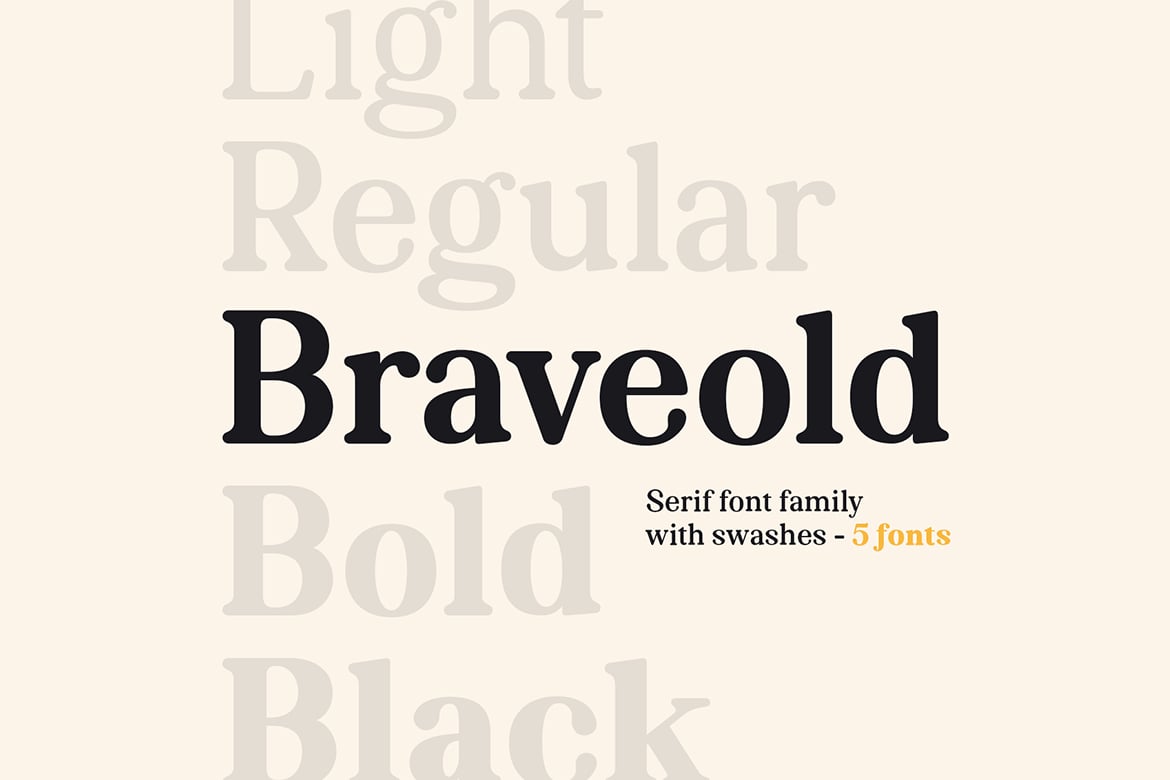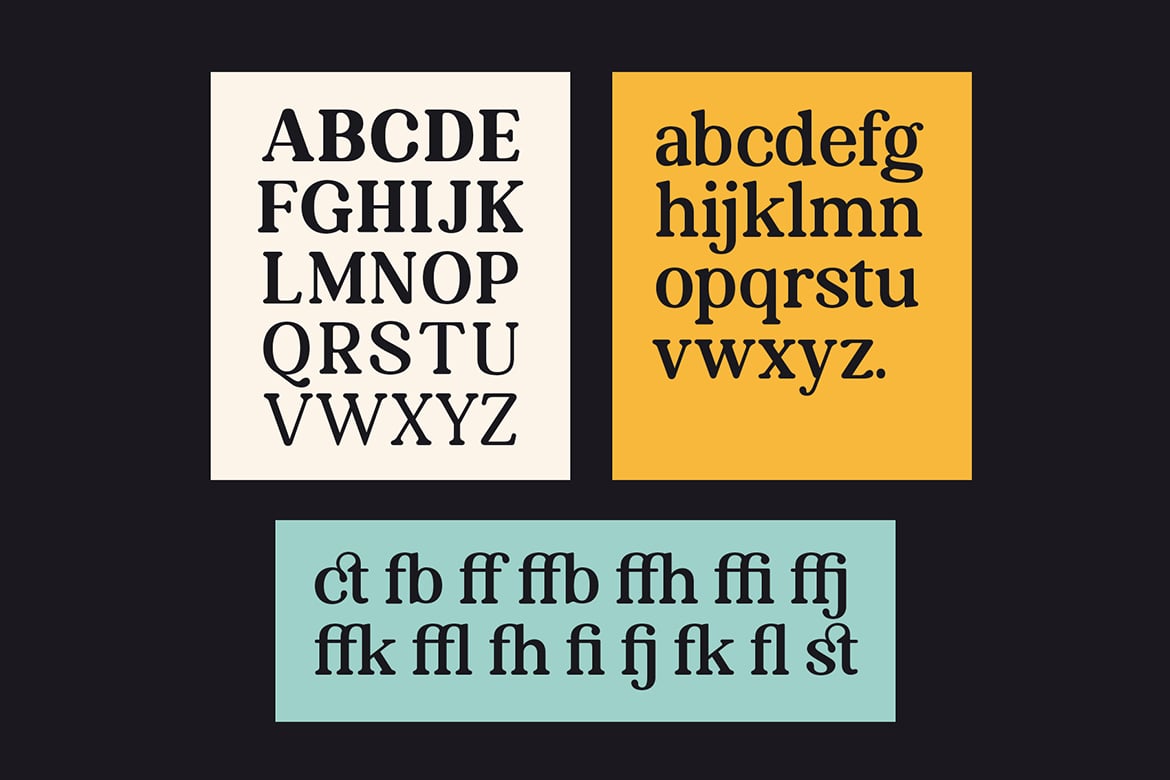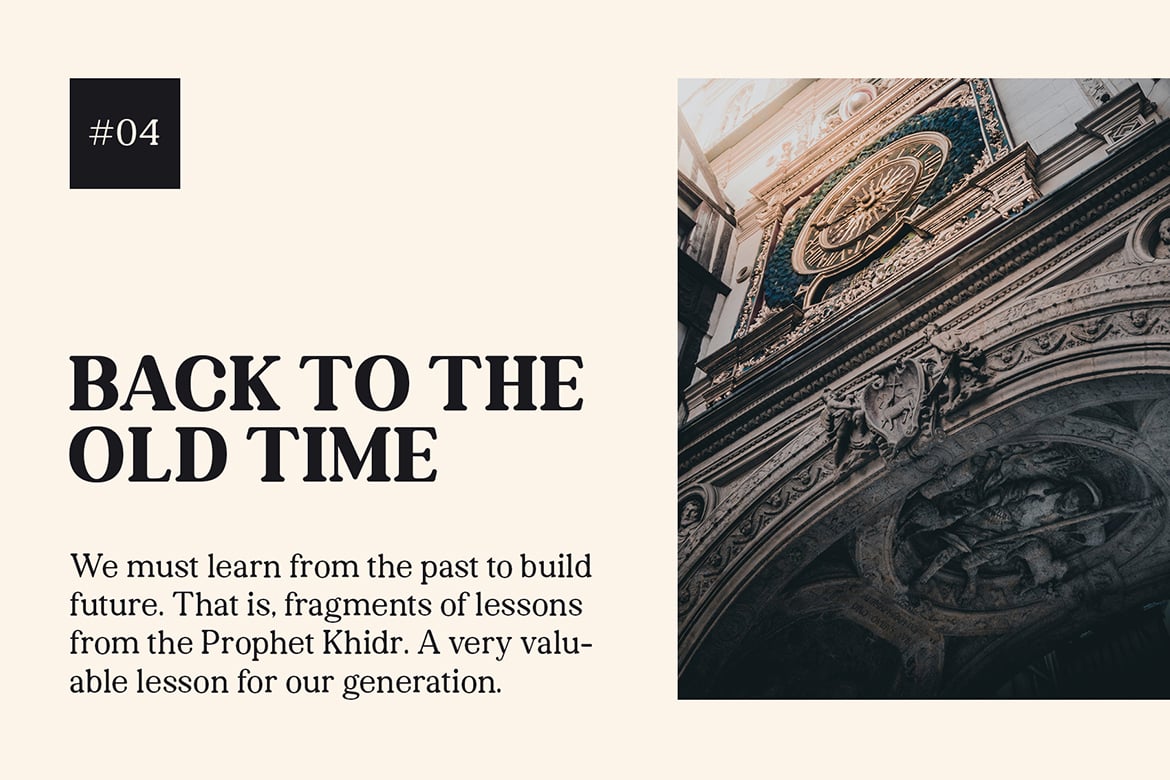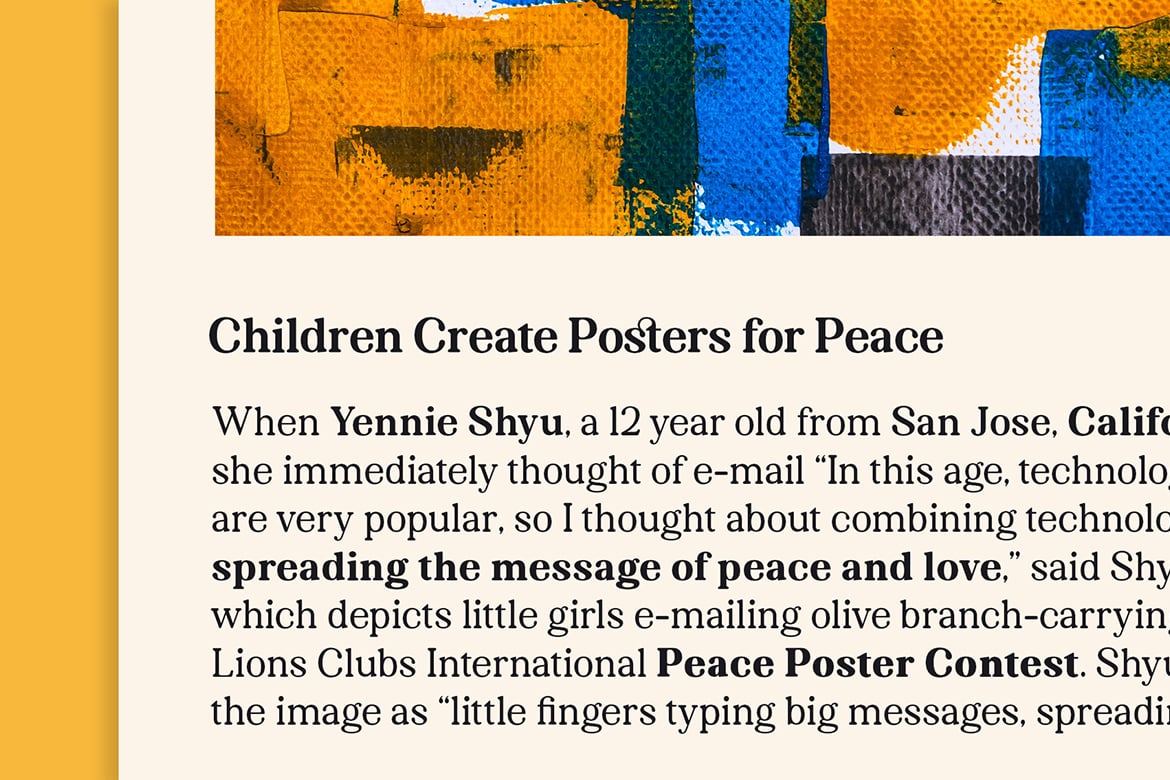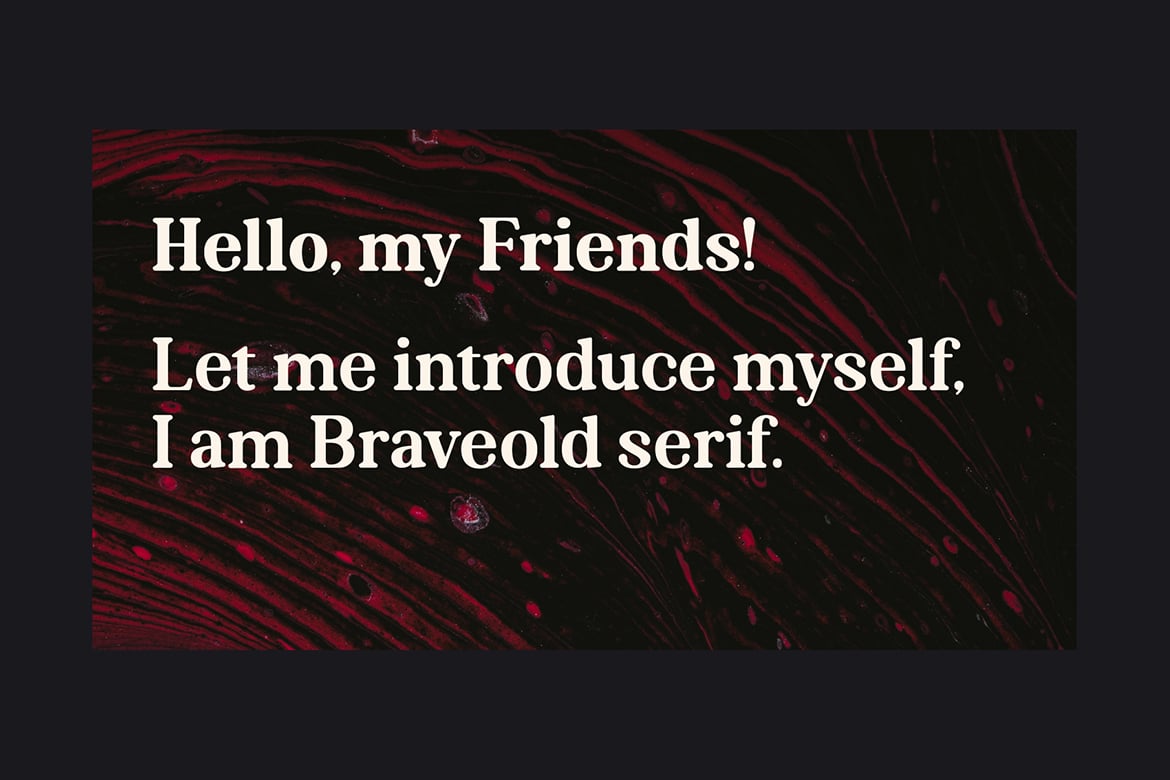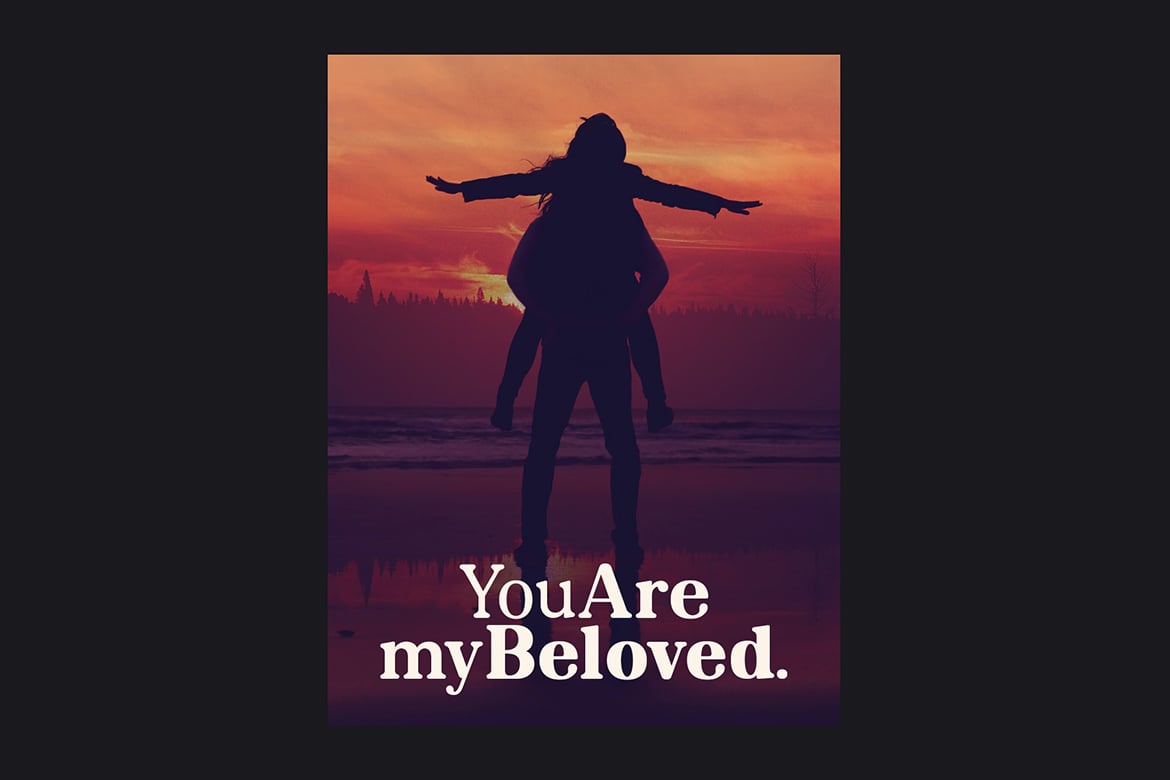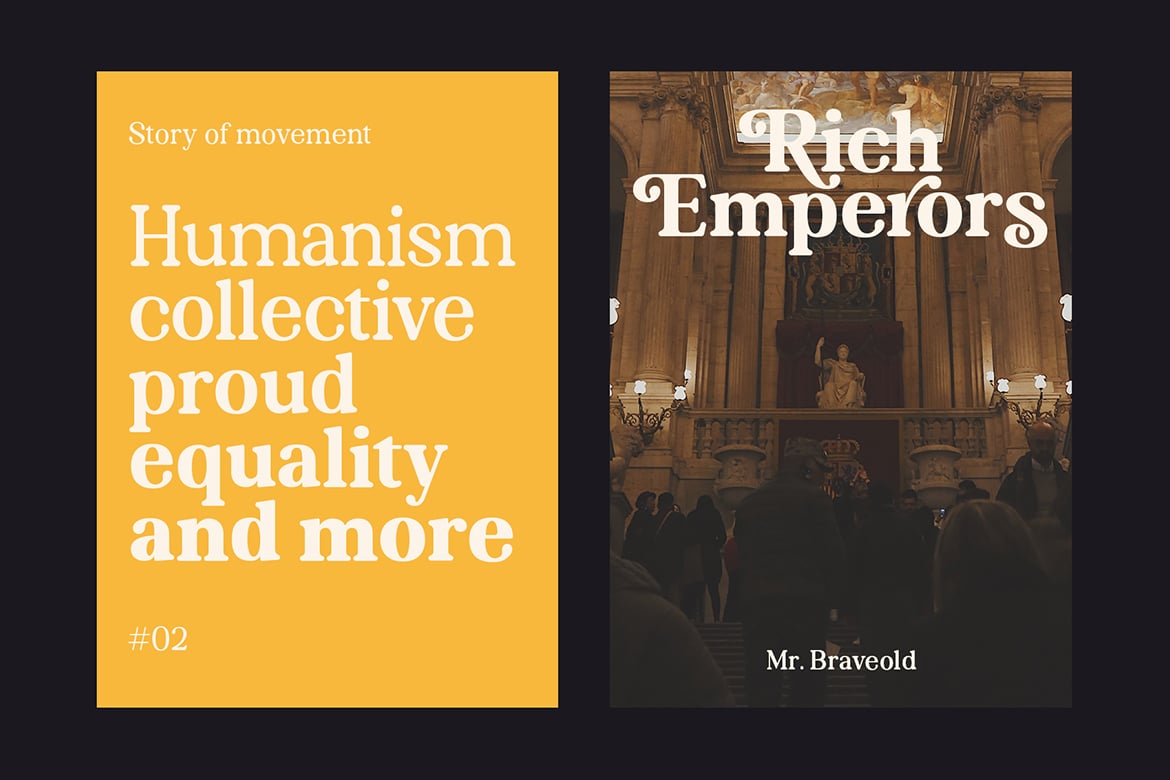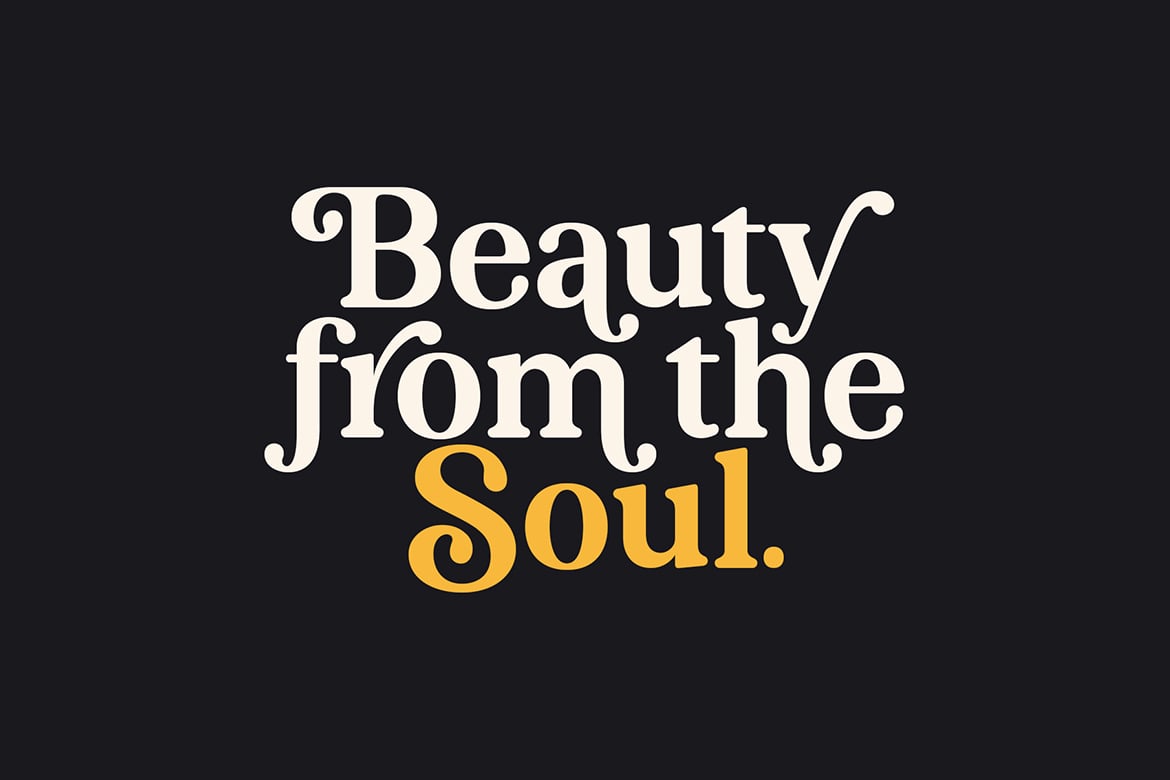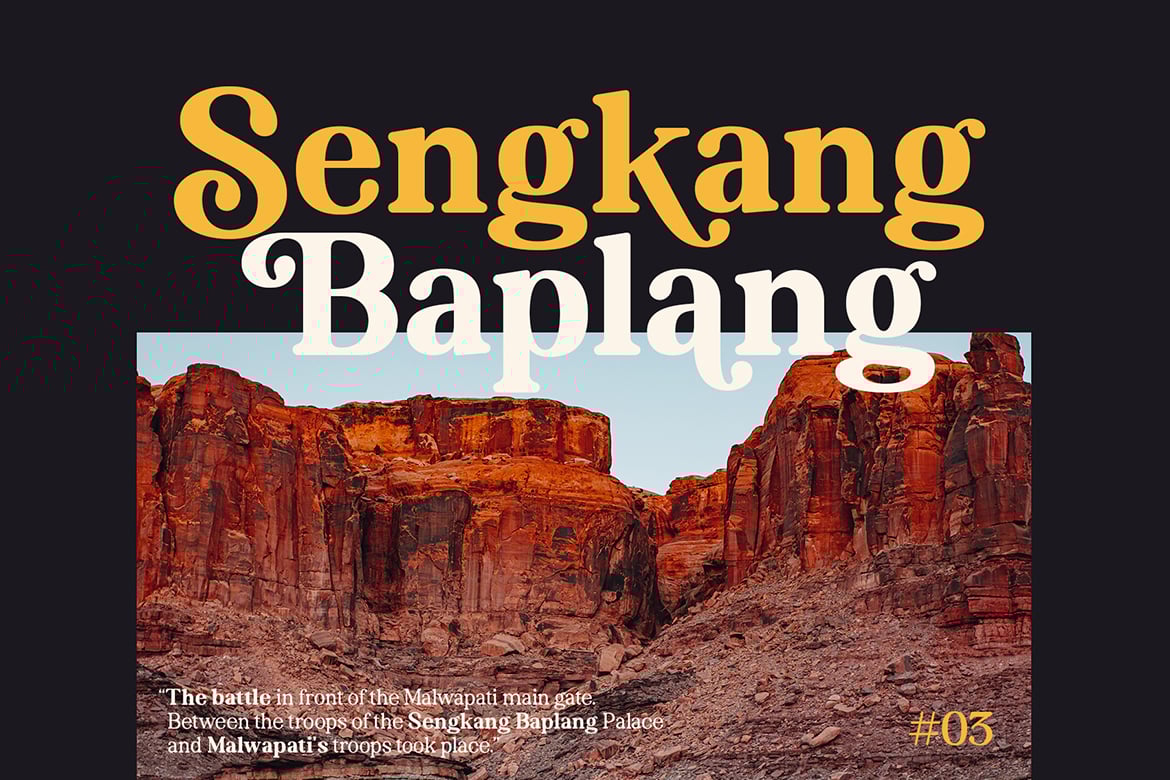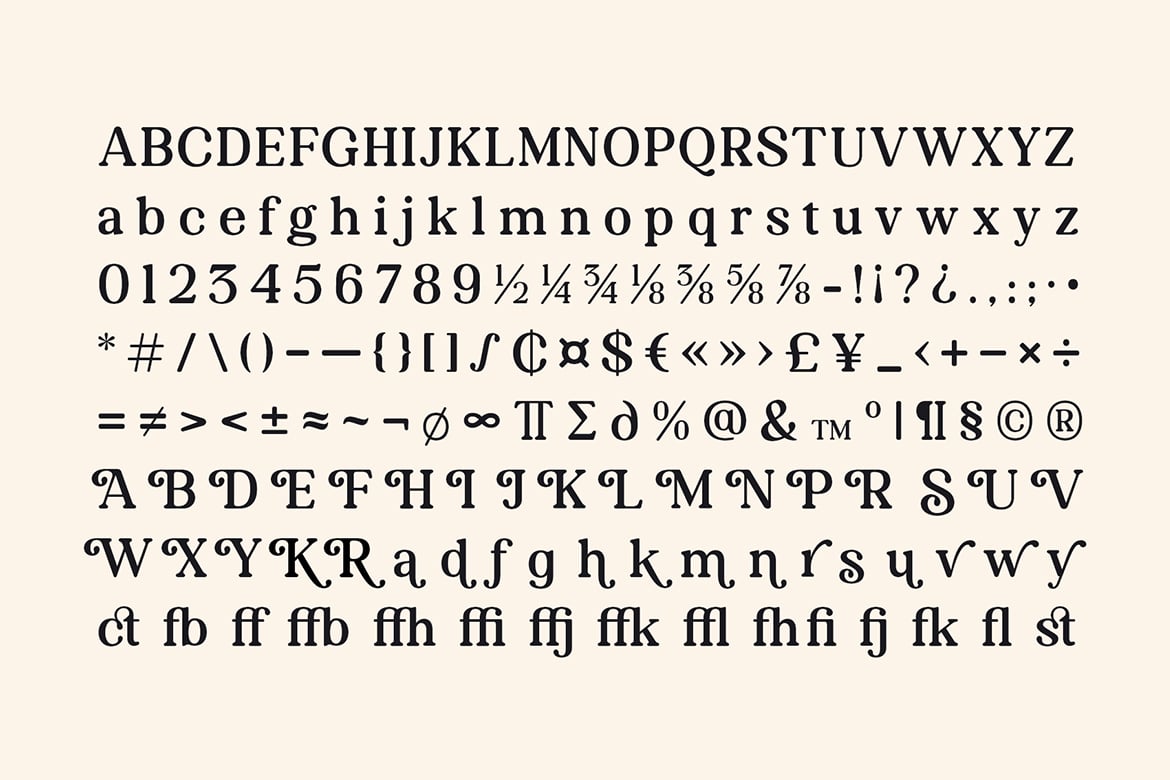
Braveold Font Family
Braveold is a serif font family with swashes, making it multifunctional. It is inspired by classic and retro fonts in the 70 and comes with 5 weights that can be selected for body text or headlines. Alternative swashes will be an attractive choice so that your project becomes more beautiful and dynamic.
- Uppercase & lowercase
- Punctuation & symbols
- Stylistic Set
- International characters (Multilingual)